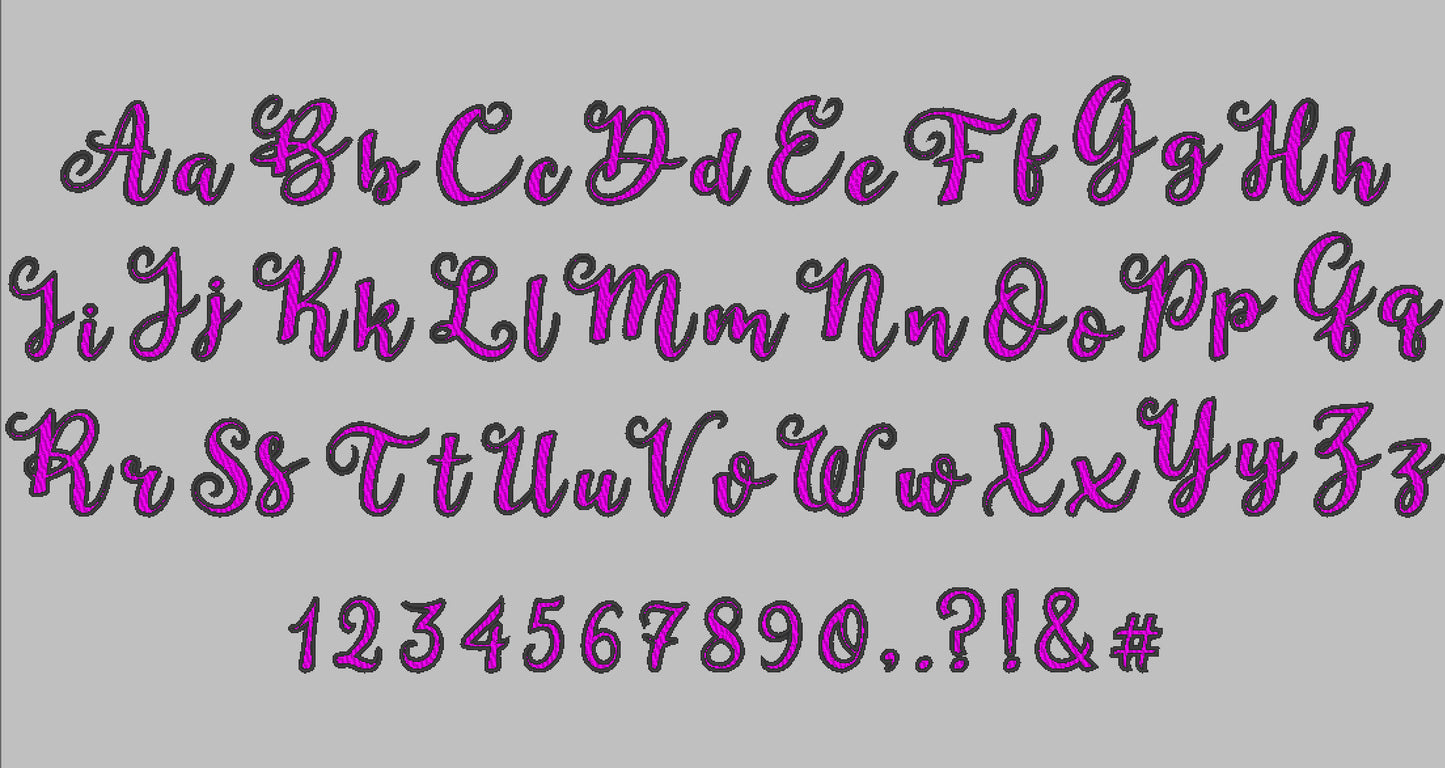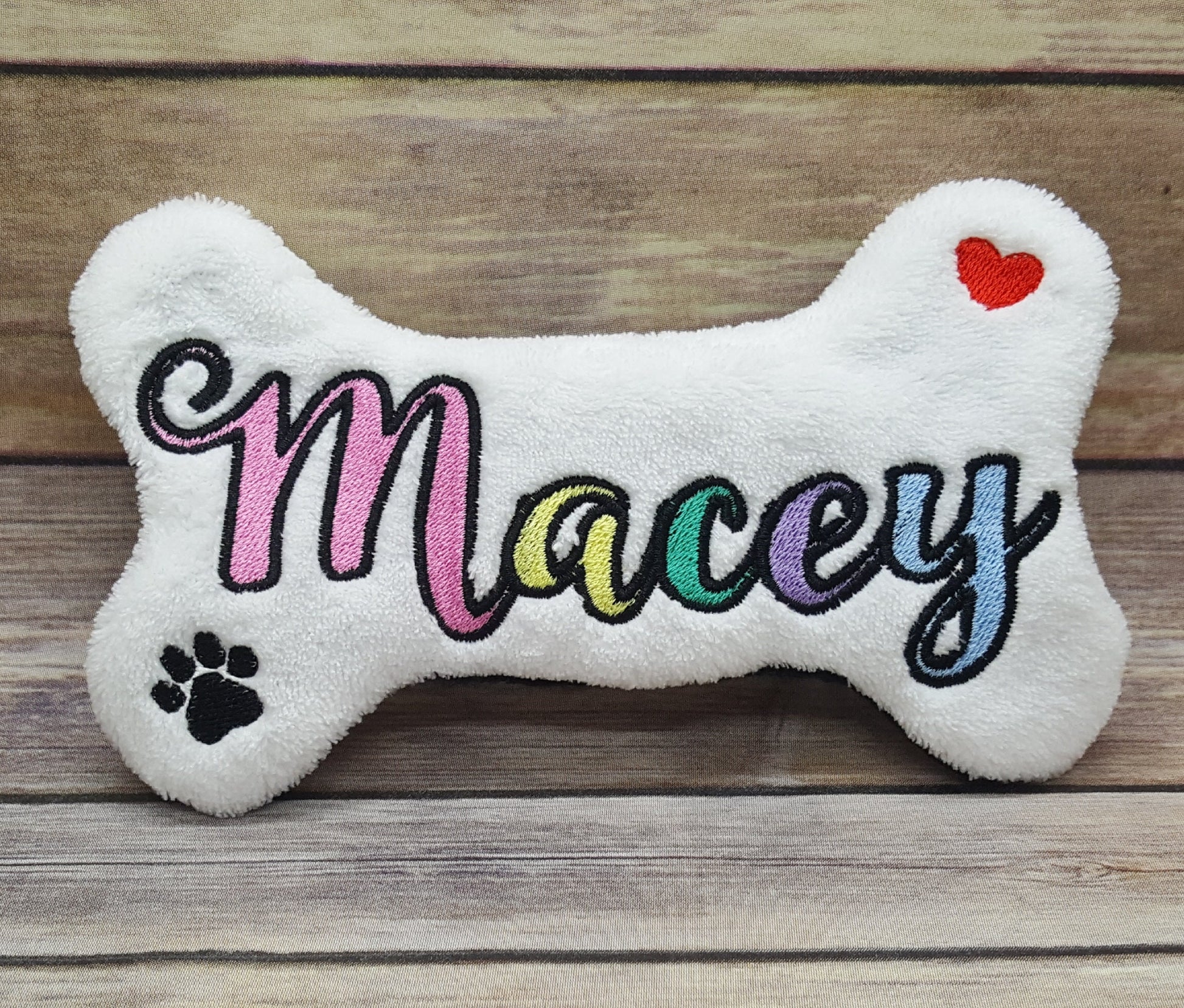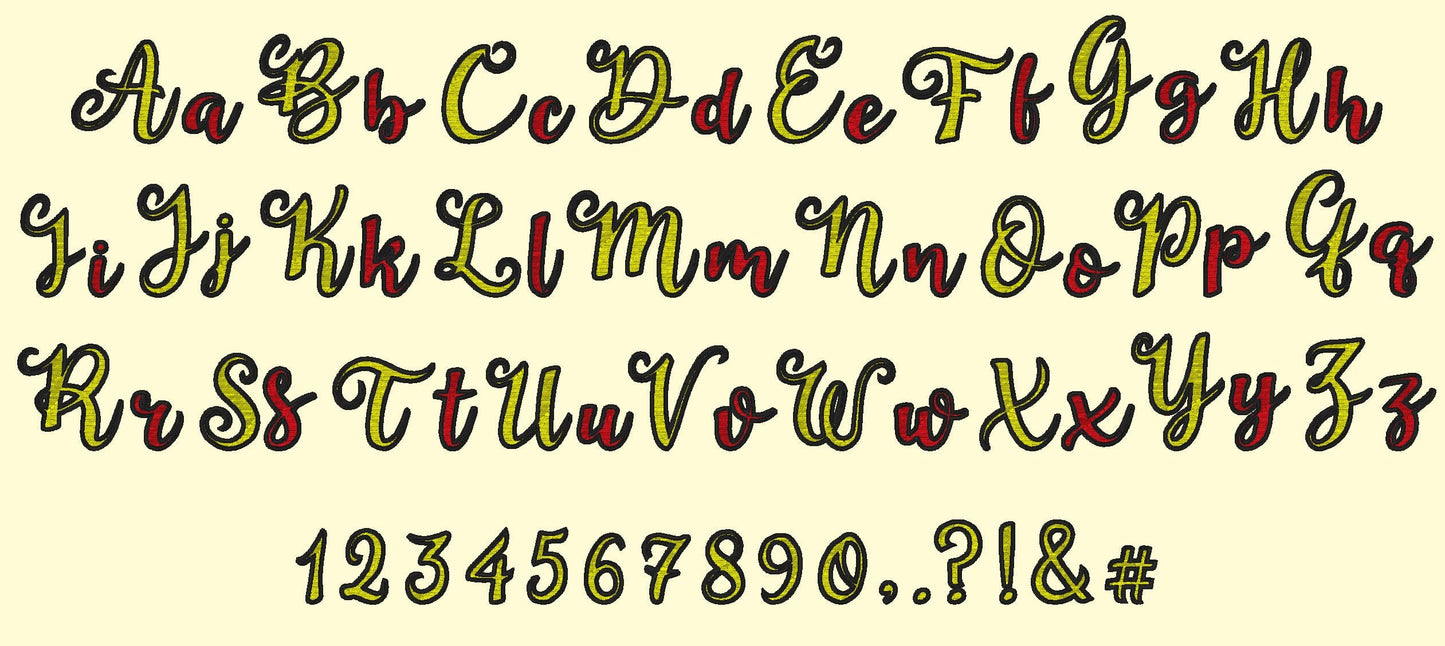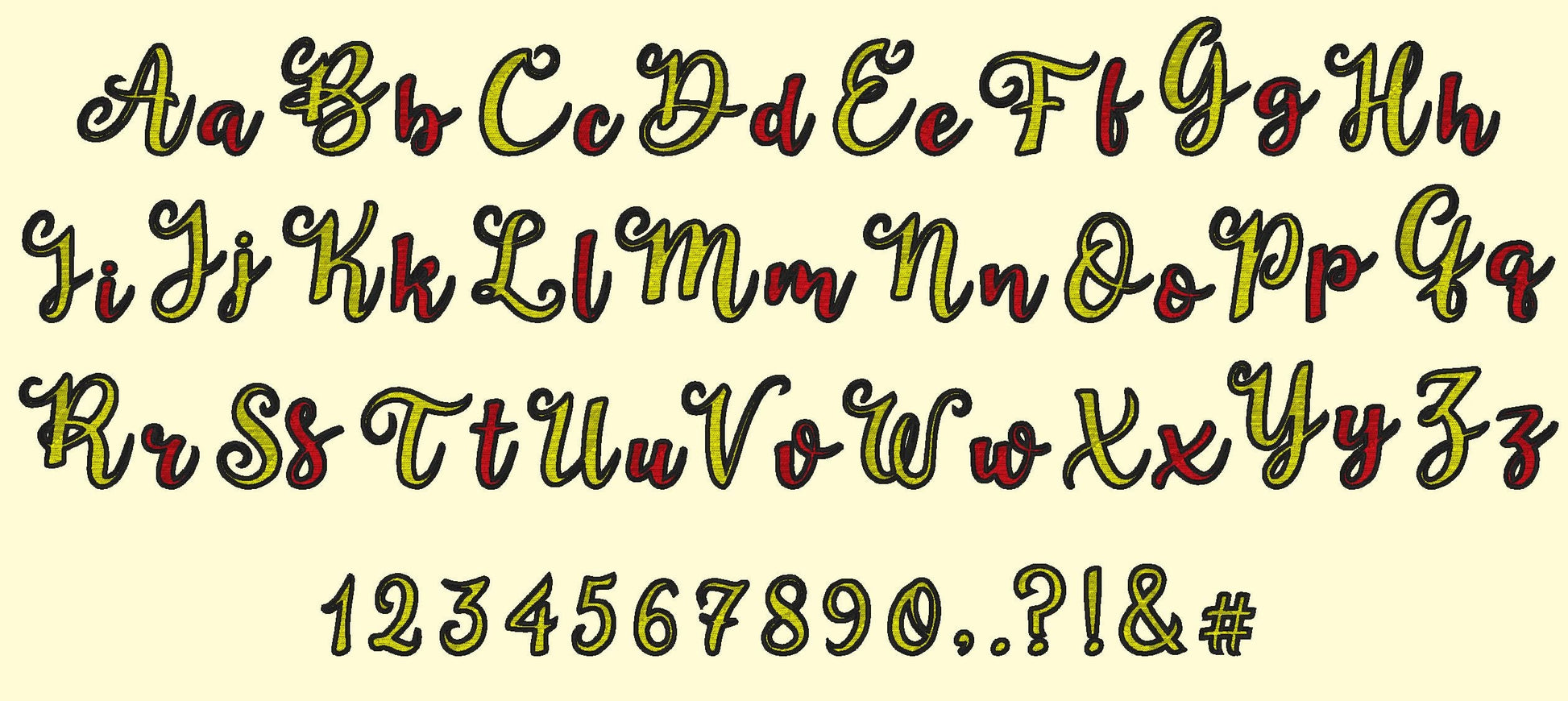
Curly Fill Stitch Font Dune
Or click to open the linkDune, a curly handwritten font in fill stitch with a two-color outline. Fun for summer names, monograms and kids' shirts.
Solid fill stitch letters with curly shapes and an outline in a second color. Uppercase and lowercase letters, numbers 0 to 9 and punctuation in six sizes: 1.2, 1.6, 2, 2.4, 3 and 3.3 inches.
- Curly fill stitch font, 2-color outline
- 6 sizes, 1.2 to 3.3 in